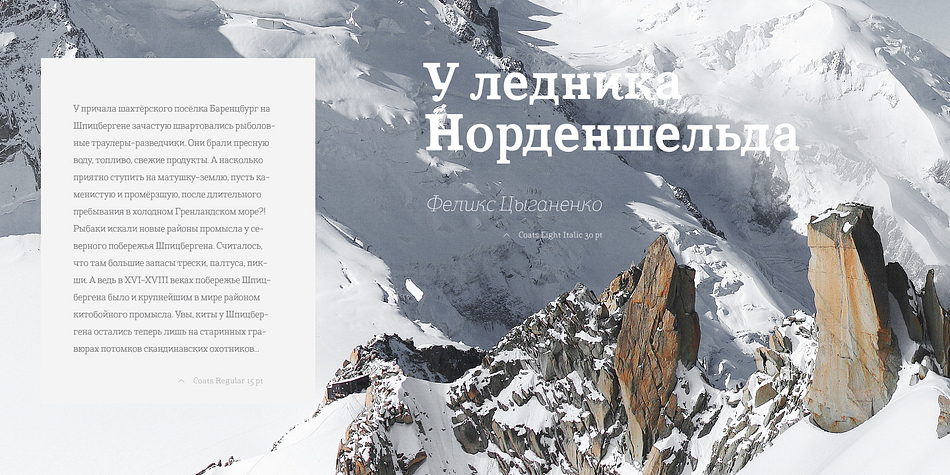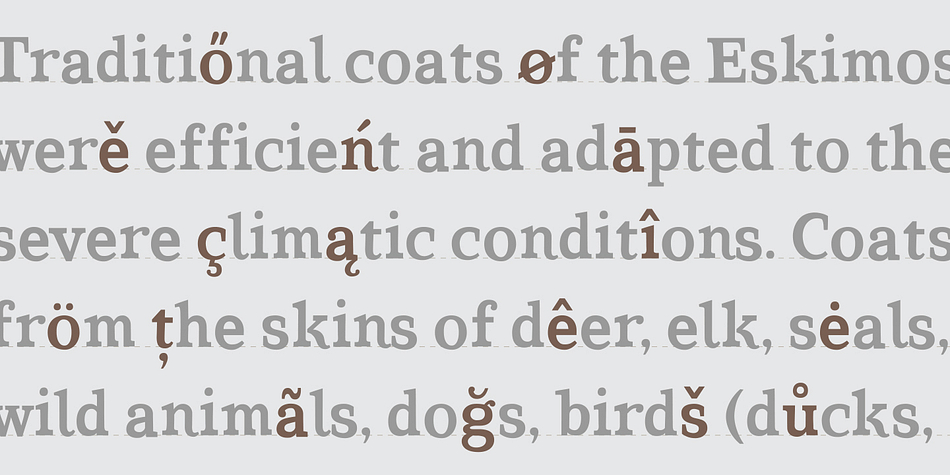
Coats
Coats is a display serif and hand display font family. This typeface has ten styles and was published by Pinata.
We’ve created a hand written hand-made antiqua with a lively character for short emotional inscriptions. Coats will warm you up in a cold day and add a little kindness and easiness into any layout. Lines typed with this typeface start “trembling” in long texts, so be careful and use these family for special occasions and in small amounts.
Imagine: on a cold day, you’ve come from a refreshing frosty walk back home, and were rewarded with a cup of hot cocoa with marshmallows on top. We call this feeling the Coats effect. Add to your collection a unique fontfamily that works perfectly in the contemporary digital age.
Styles Display Serif, Hand Display